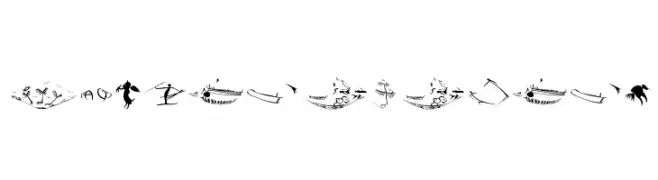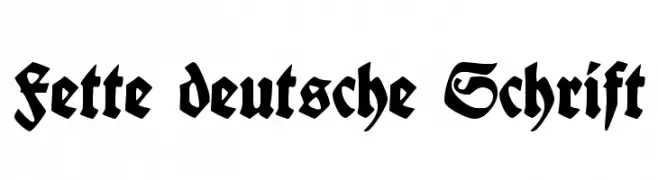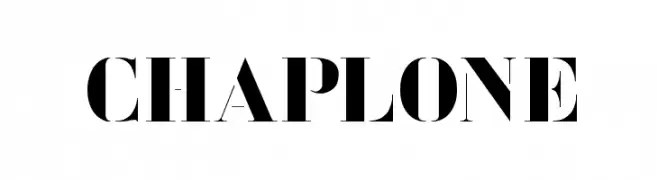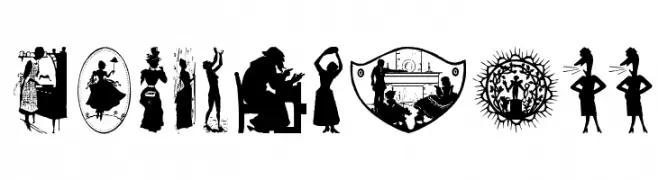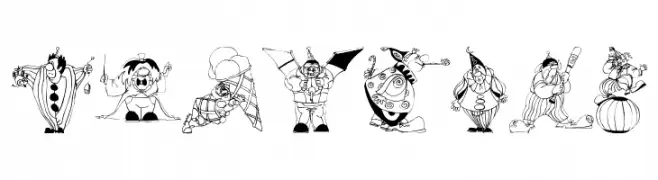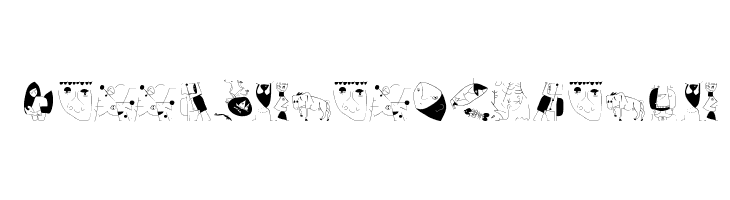
A whimsical and abstract font featuring unique creature-like designs.
A bold, blackletter font with sharp, angular lines and ornate detailing.
Artistic, hand-drawn font with abstract faces and figures.
A decorative blackletter font with bold, angular strokes and boxed characters.
An ornate blackletter-style font with circular borders, exuding elegance and sophistication.
A bold, high-contrast serif font with a modern and dramatic style.
Ornate silhouette illustration font with vintage scenes.
A whimsical, hand-drawn font with playful and irregular strokes.
A whimsical decorative font featuring clown illustrations for each character.
A decorative cartoon head illustration font with playful, expressive faces.